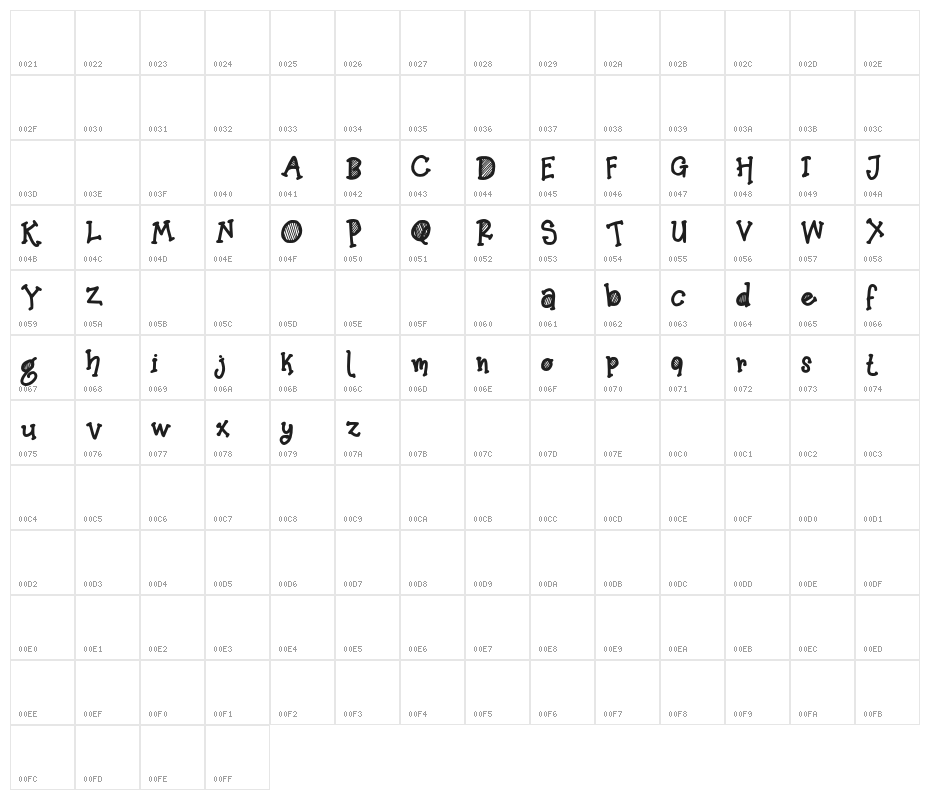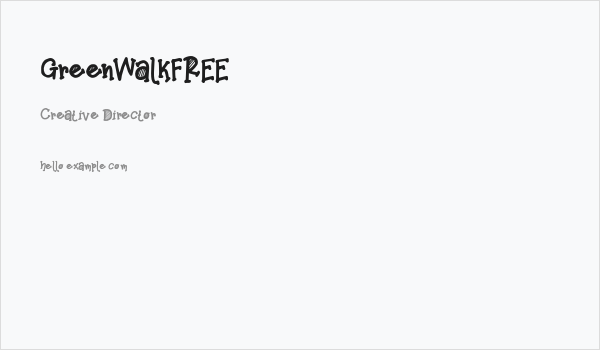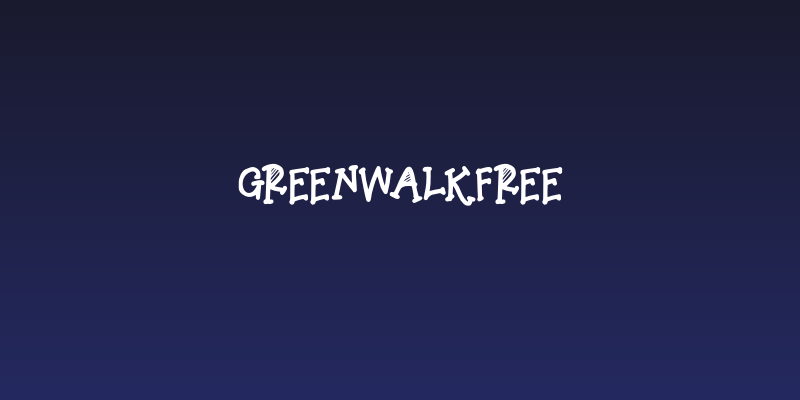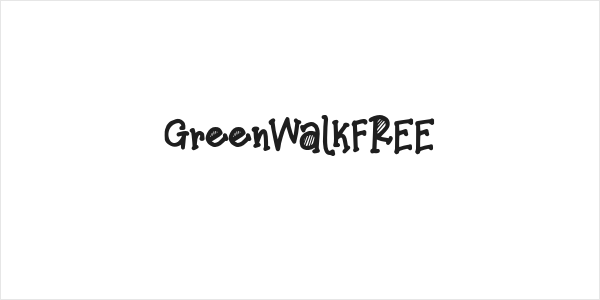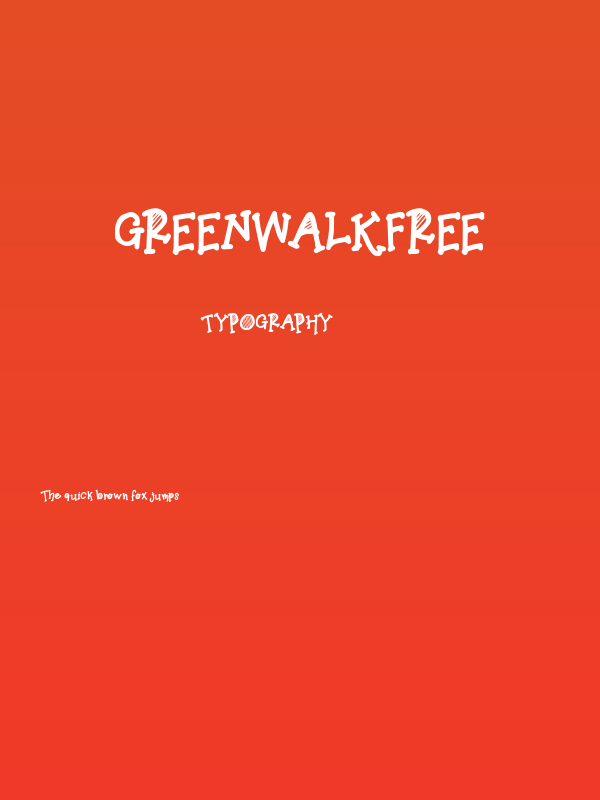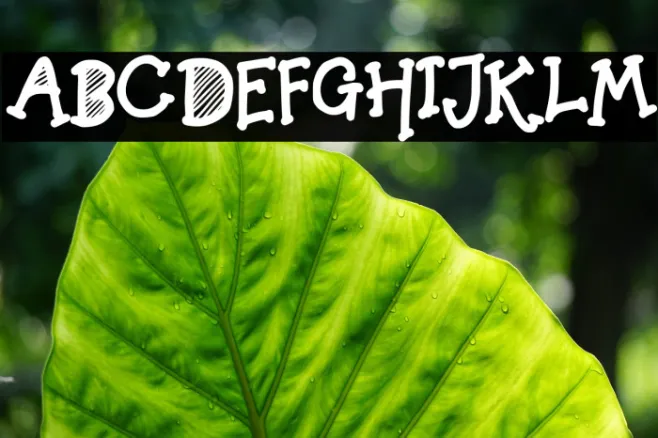
GreenWalkFREE Font
GreenWalkFREE Description
This playful and whimsical font features bold, rounded characters with a hand-drawn aesthetic. The uppercase letters are particularly eye-catching, with some characters incorporating unique fill patterns, such as diagonal stripes, adding a touch of creativity. The lowercase letters maintain the same playful style, with exaggerated curves and loops that give the font a lively and dynamic appearance. The numbers and special characters are consistent with this style, ensuring a cohesive look across all text. This font is perfect for projects that require a fun and informal touch, such as children's books, party invitations, or playful branding.
| Proposed Projects | Ideal for children's books, party invitations, playful branding, and creative posters. |